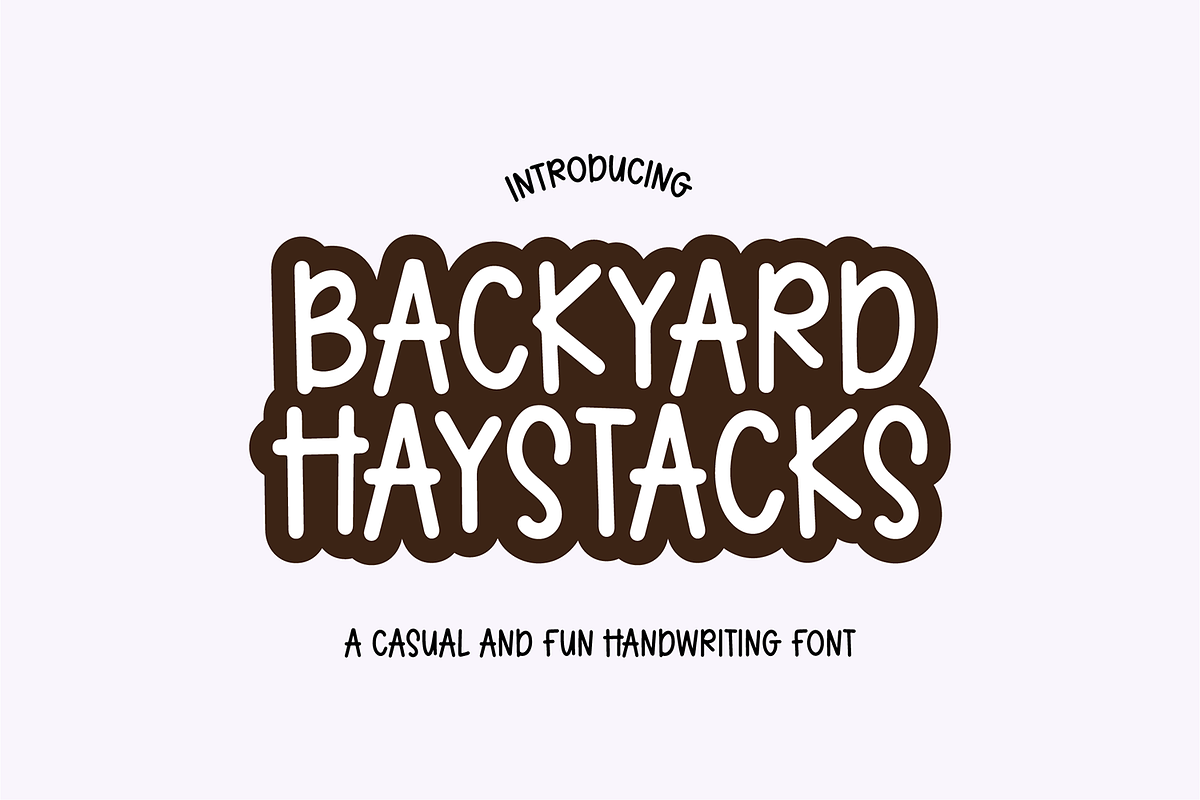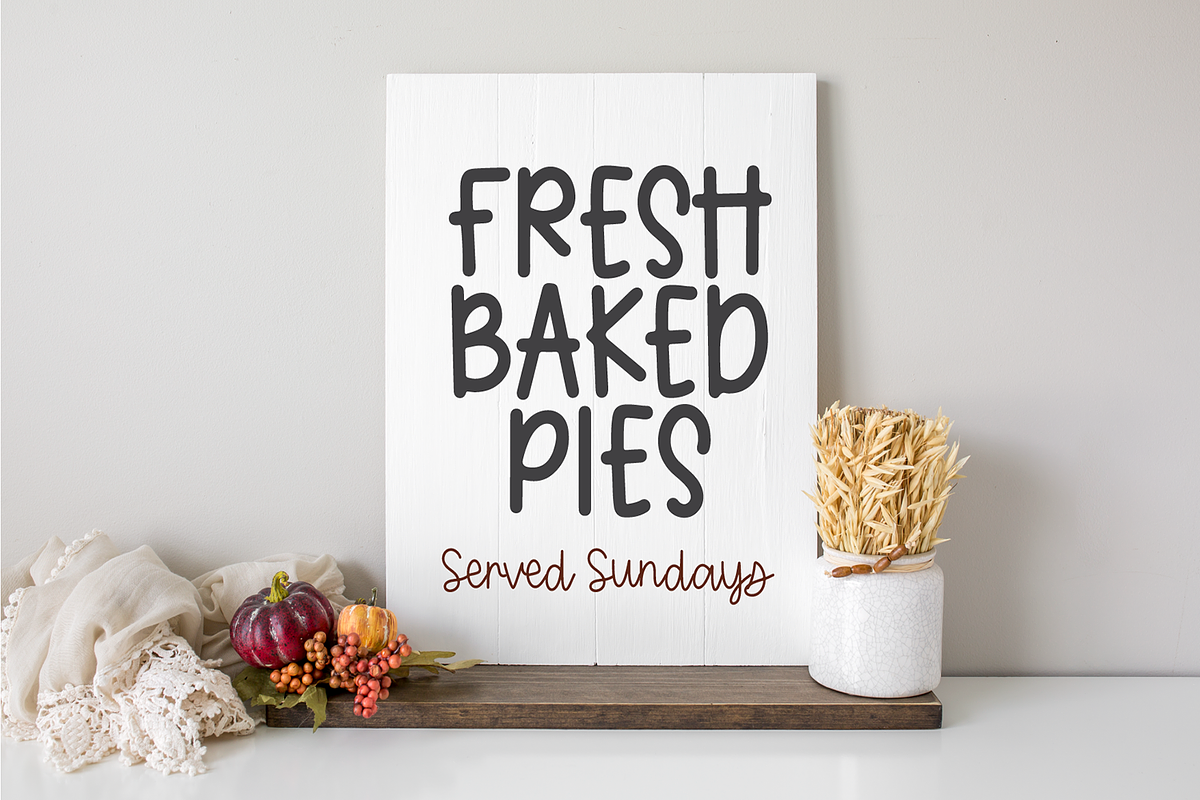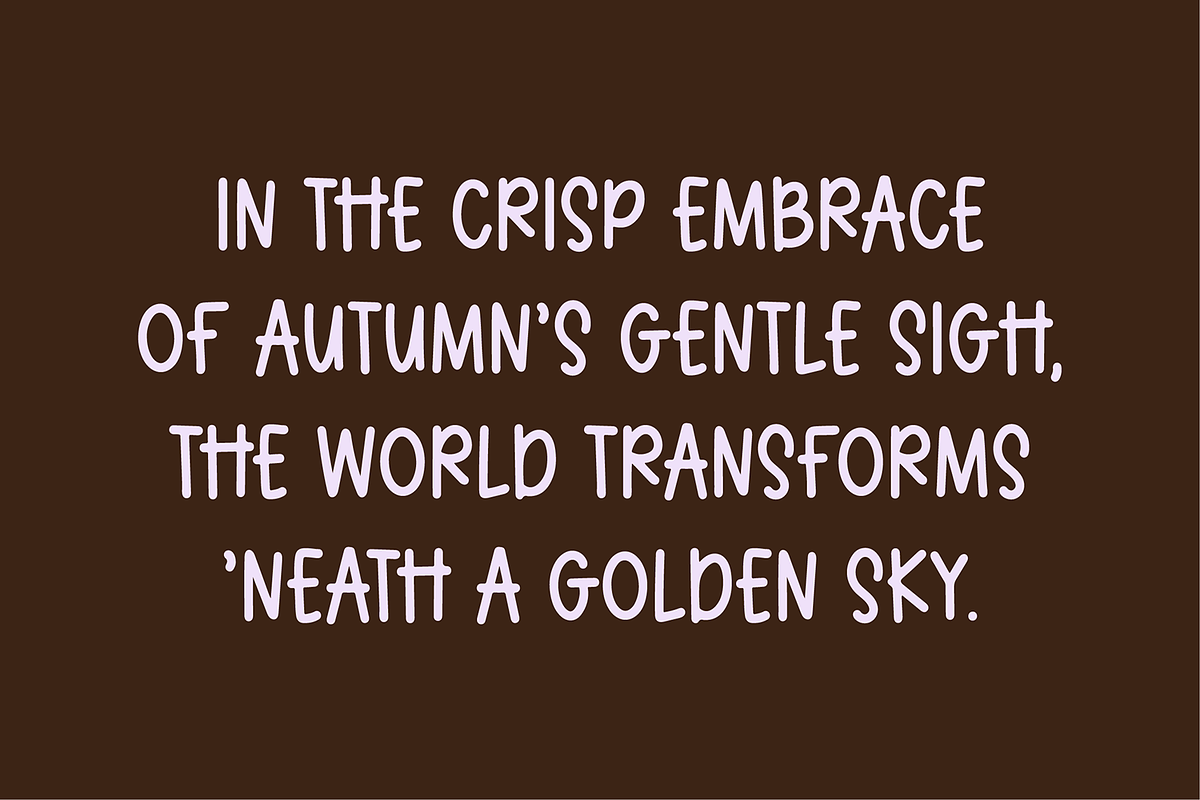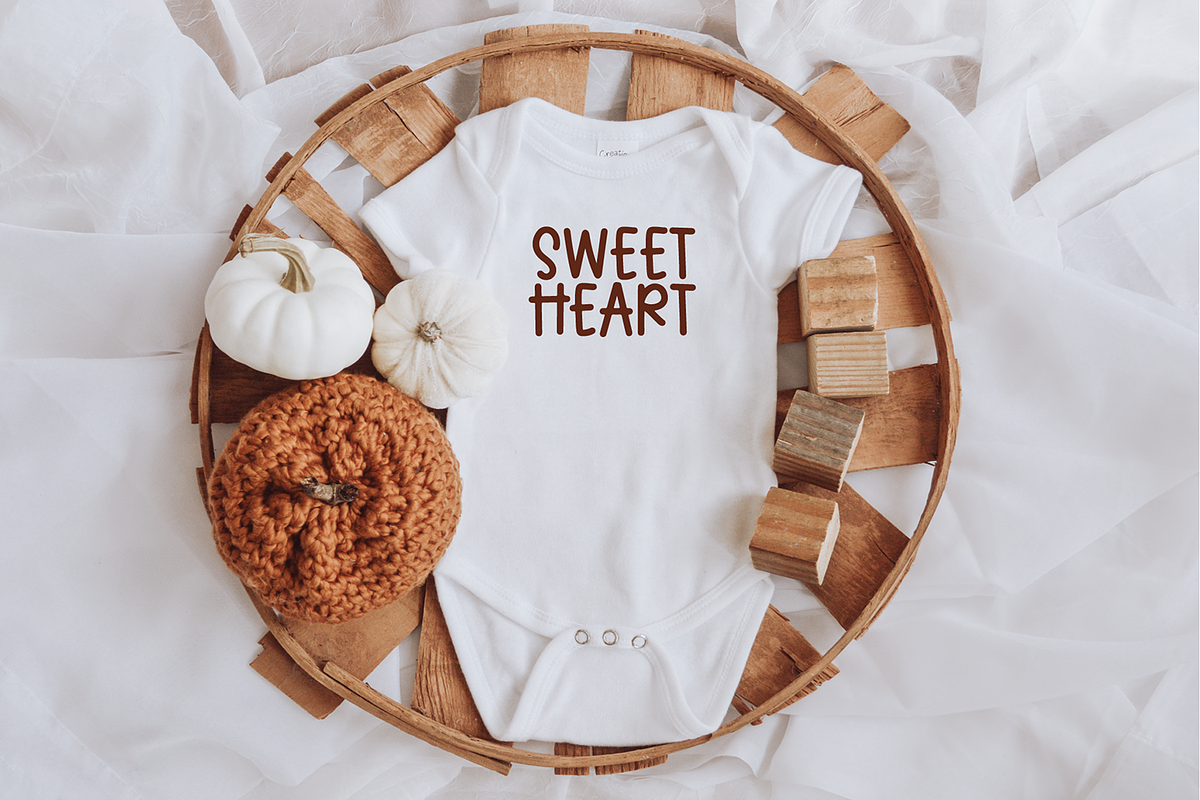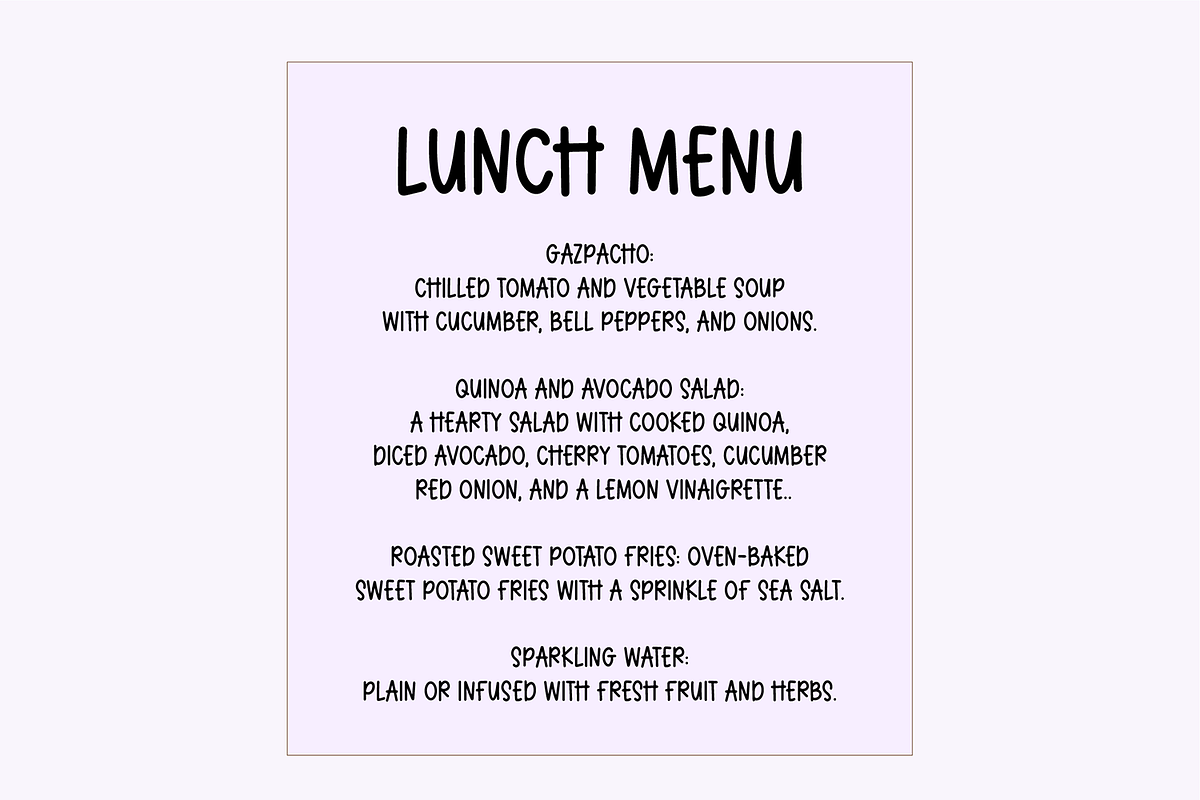
BACKYARD HAYSTACKS Quirky Handwritin
"Backyard Haystacks" a fun marker handwriting font.
Backyard Haystacks is a cute and bold handwriting font that is perfect for social media or goodnotes or digital planning. Use it for branding, crafts for decor, invitations, and more! This font includes upper and lowercase glyphs, numbers, basic punctuation marks.